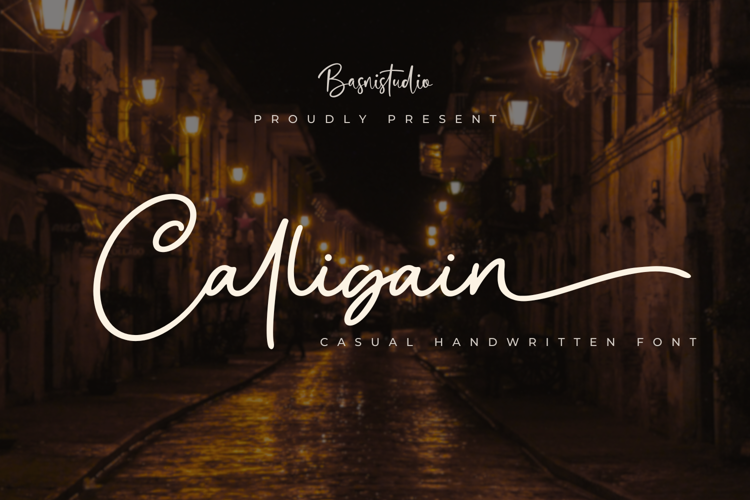
Calligain Font
INTRODUCING Calligain a Casual Handwritten Font
Calligain is a casual handwritten font that flows effortlessly, just like a love letter written by hand.